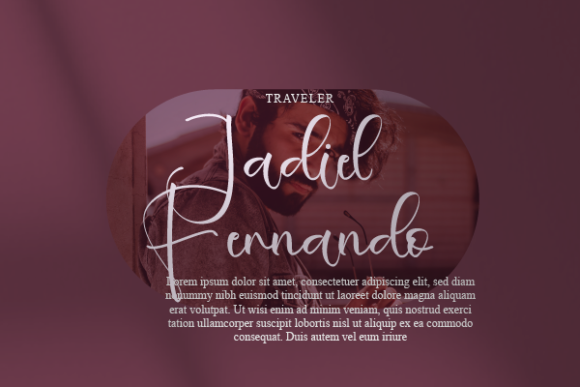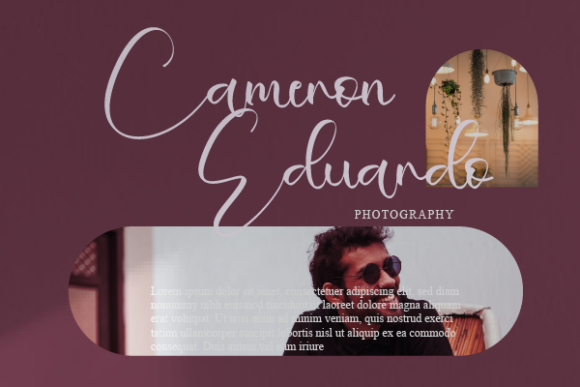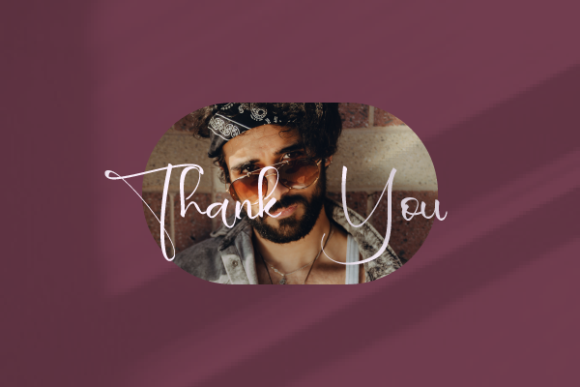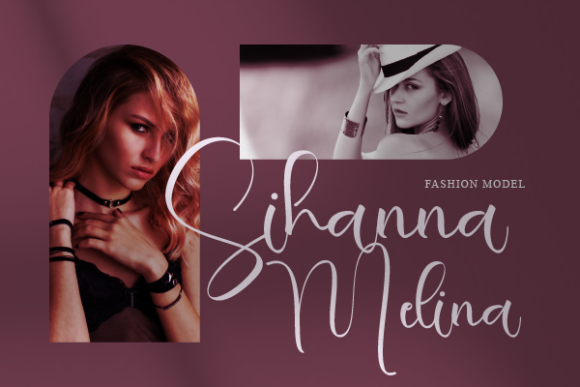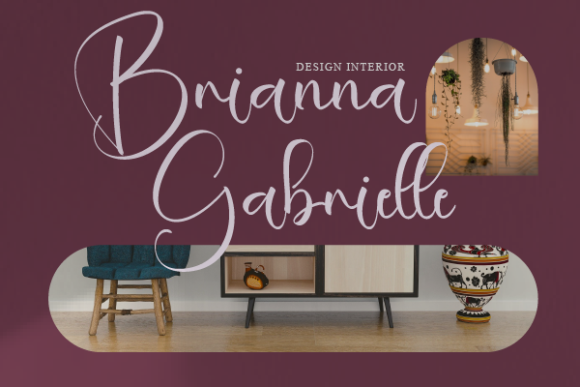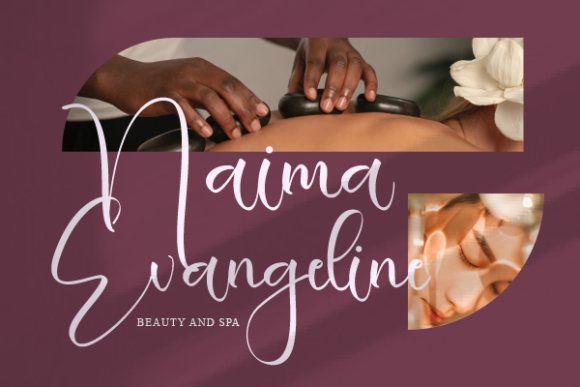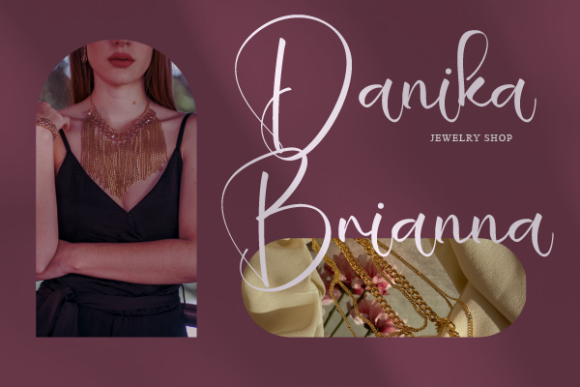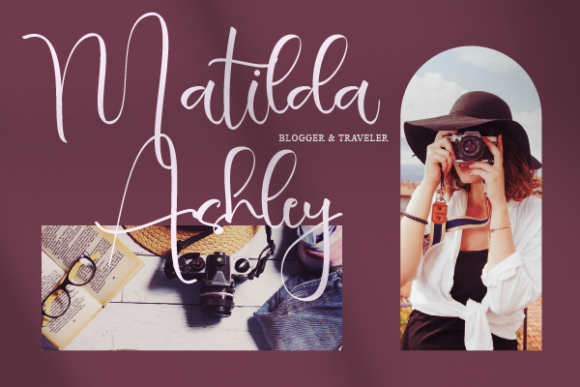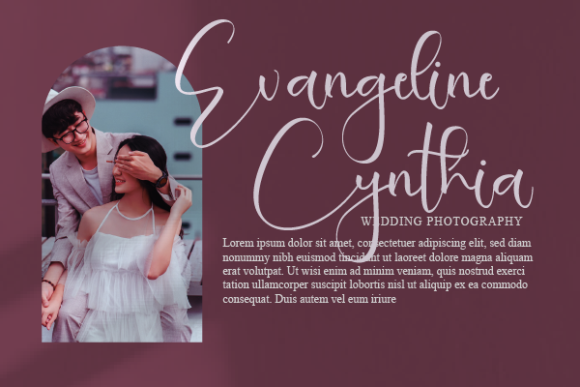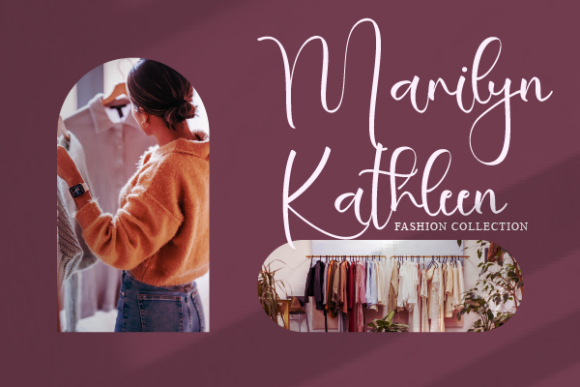
Danika Naomi Font
About Danika Naomi Font
Danika Naomi is a beautiful and light handwritten font with a unique feel and a stunning impact. It will add a luxury spark to any design project that you wish to create!